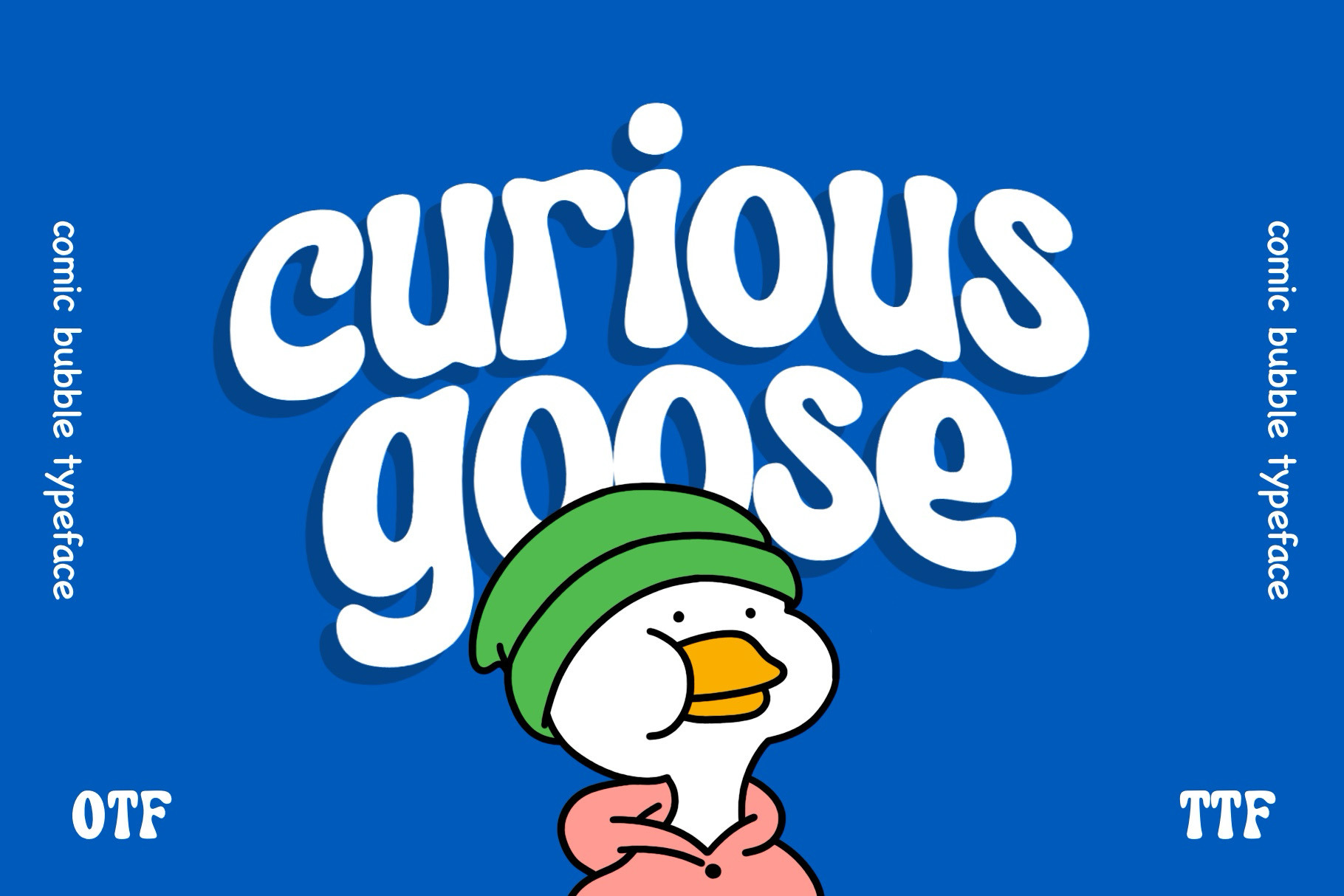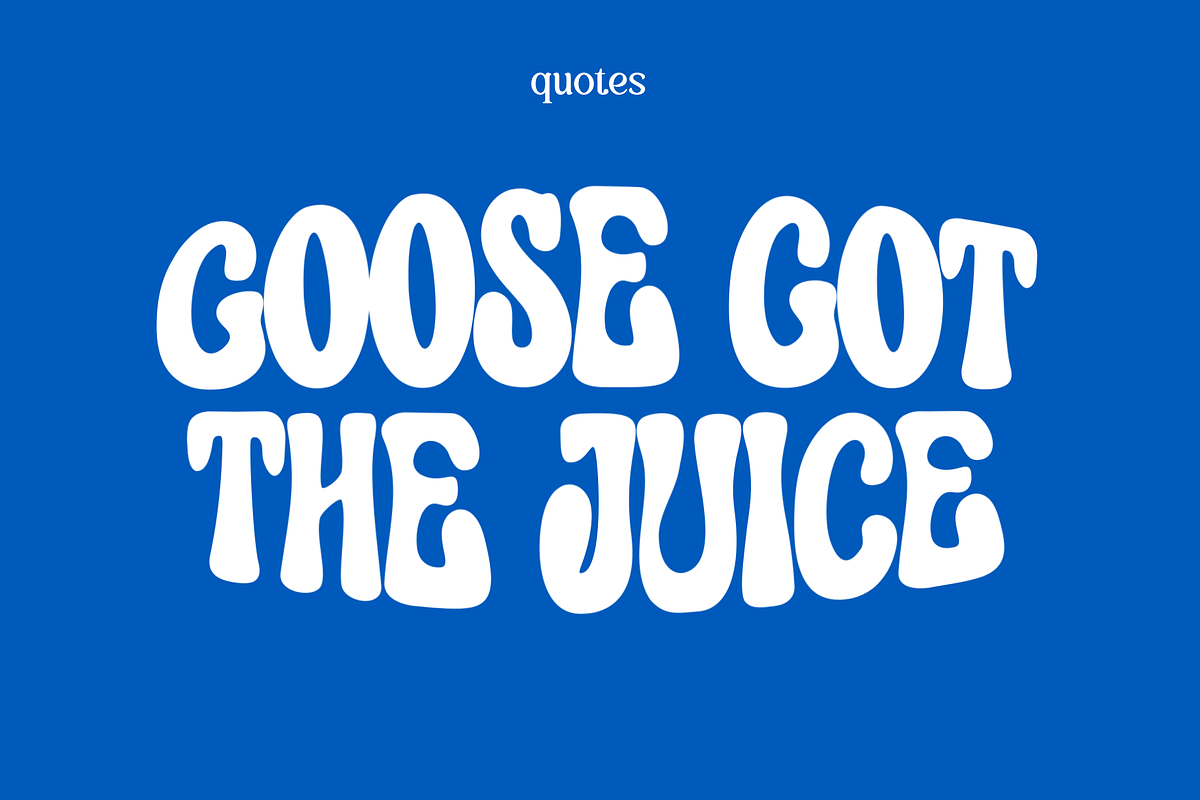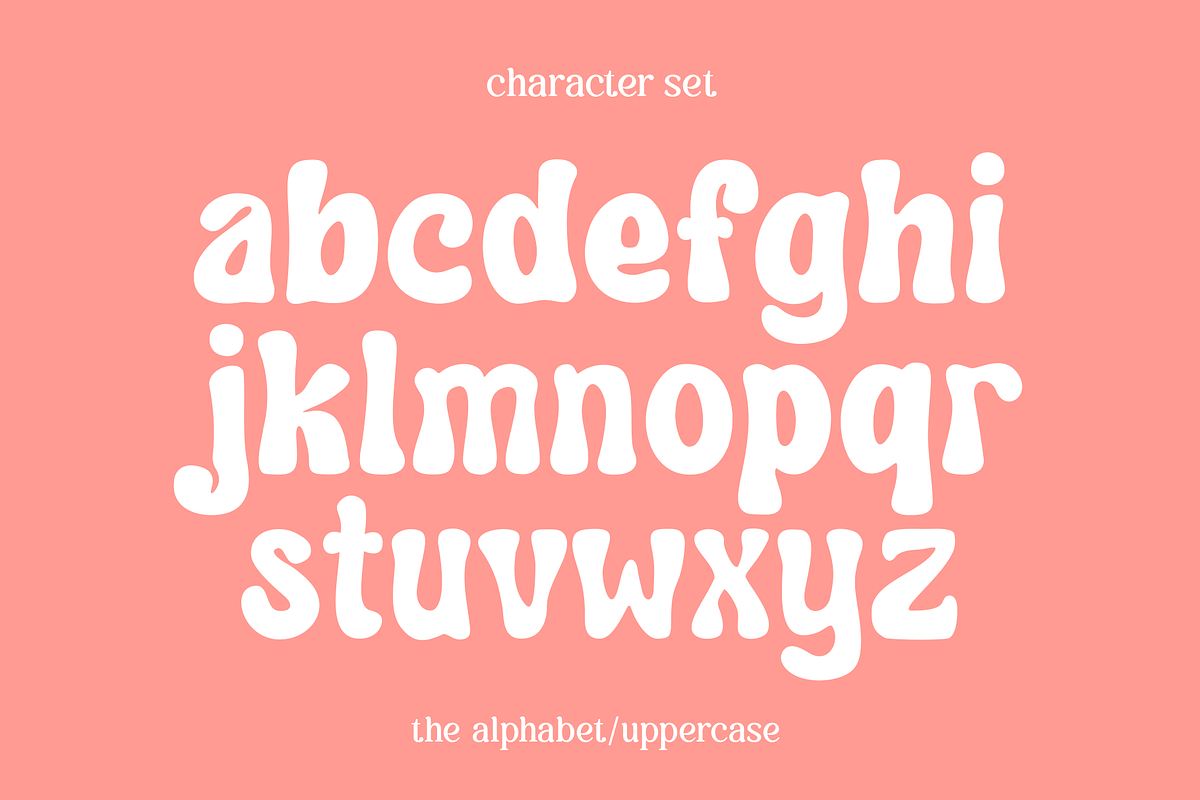
Curious Goose Font - Groovy Font
Introducing Curious Goose is a groovy comic bubble font style that exudes playfulness and whimsy. This typeface available in SVG format, compatible with advanced tools such as Cricut and Glowforge, and for use in Procreate. Whether used in posters, comics, or branding materials, Curious Goose brings warmth and cheerfulness into posters, comics, and branding materials, making it an attractive choice for those looking for a unique and eye-catching font.